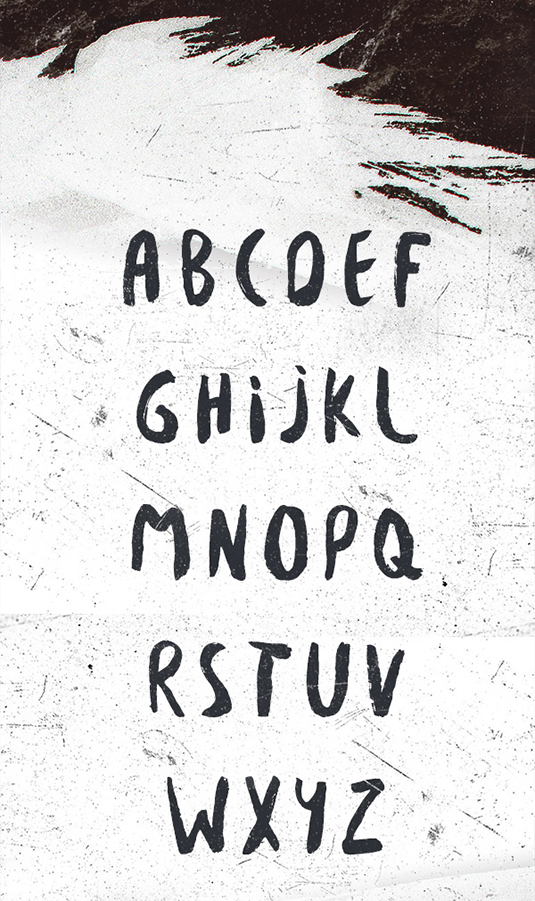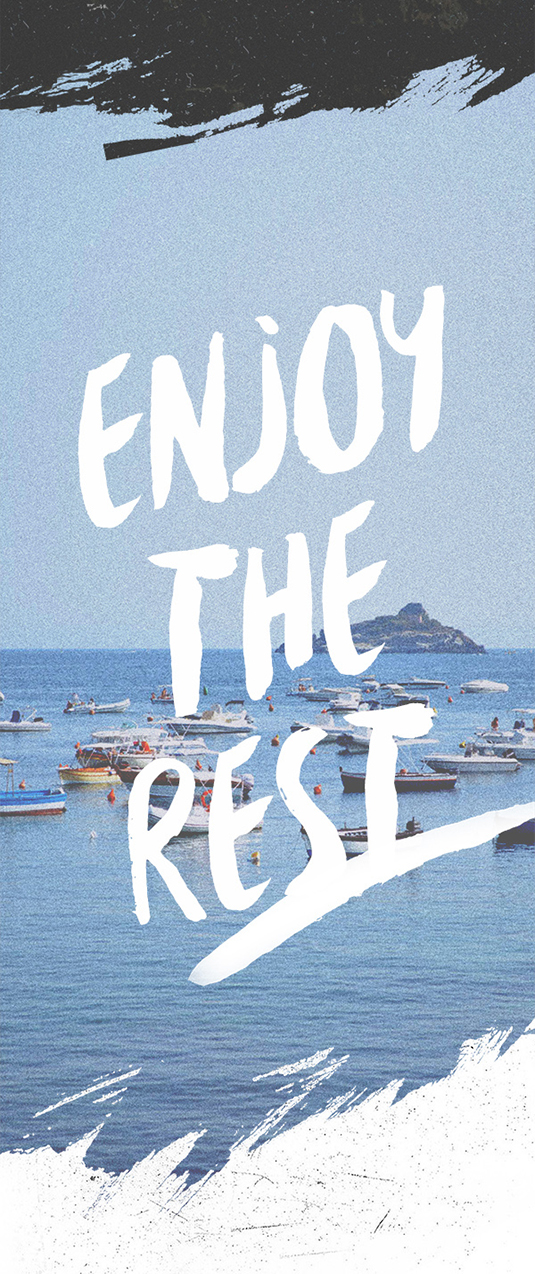
Font of the day: Besom
Besom
A new brush typeface for 2015, Besom was created by the Krisjanis Mezulis and Gatis Vilaks of Riga, Latvia. Created for one of the pair's personal art projects, Besom is available free for personal and commercial use.